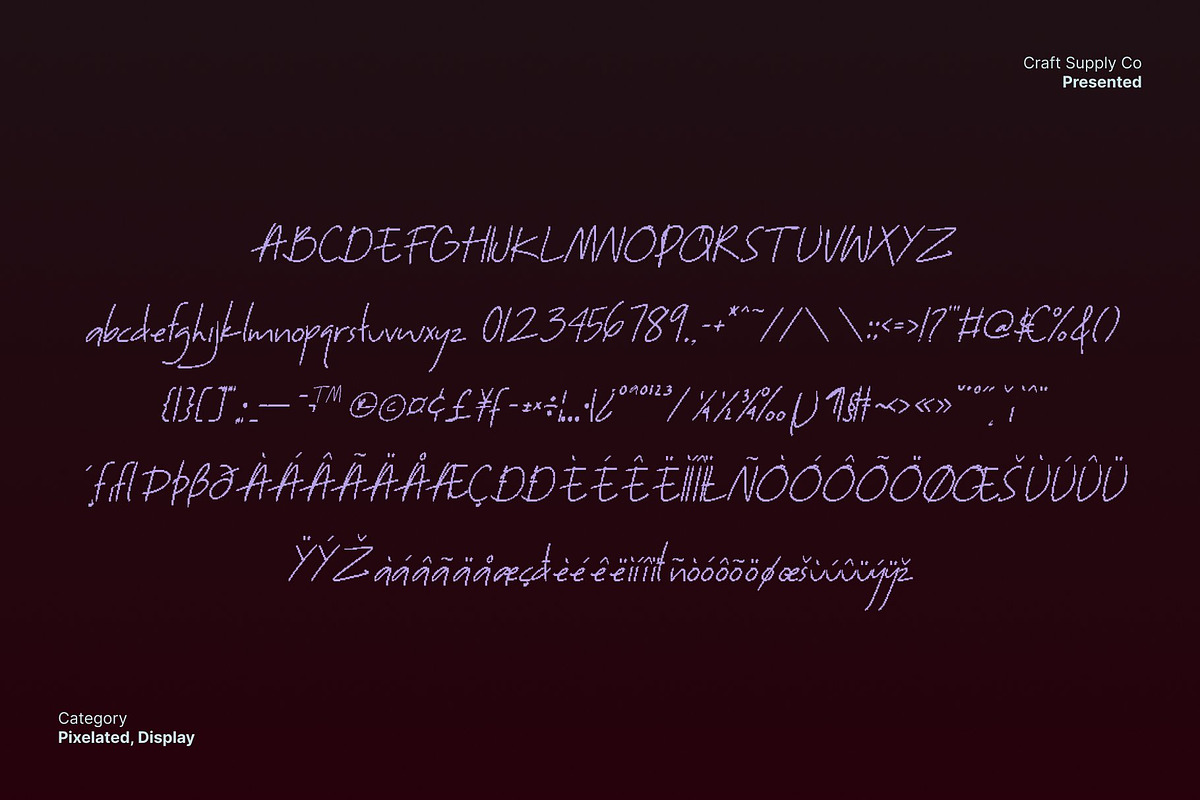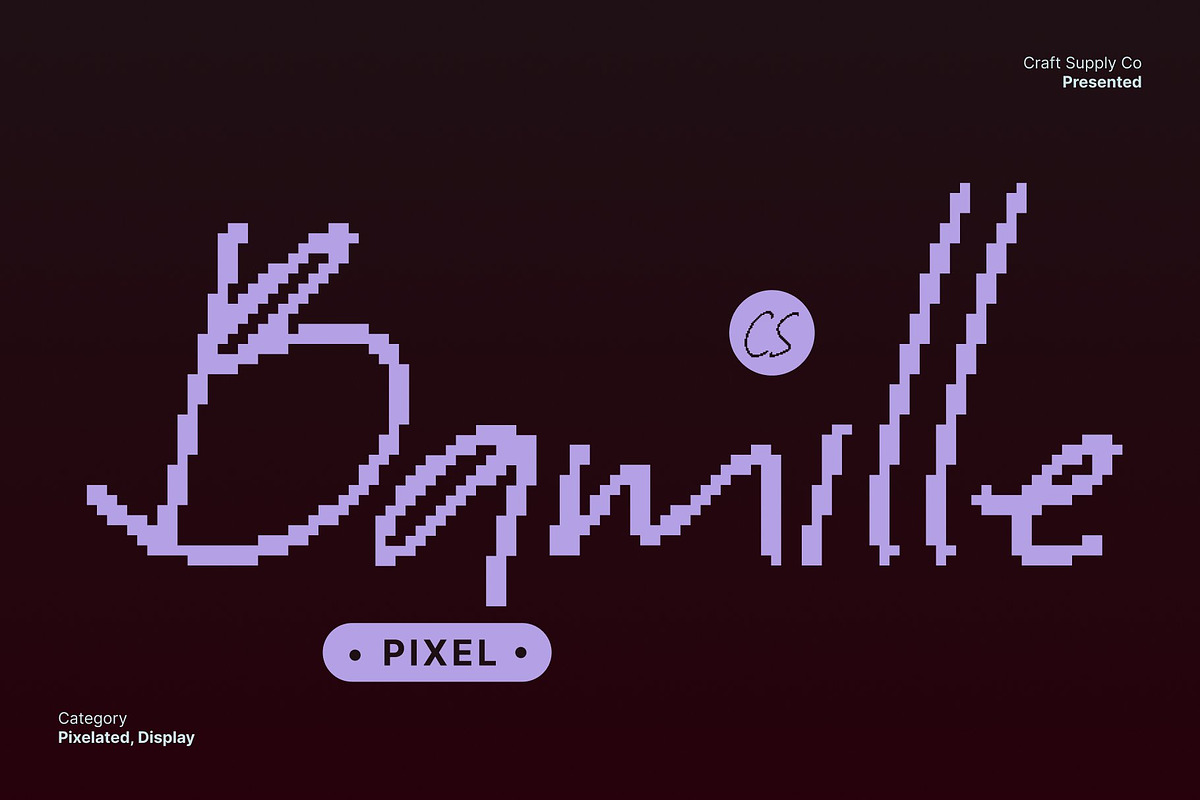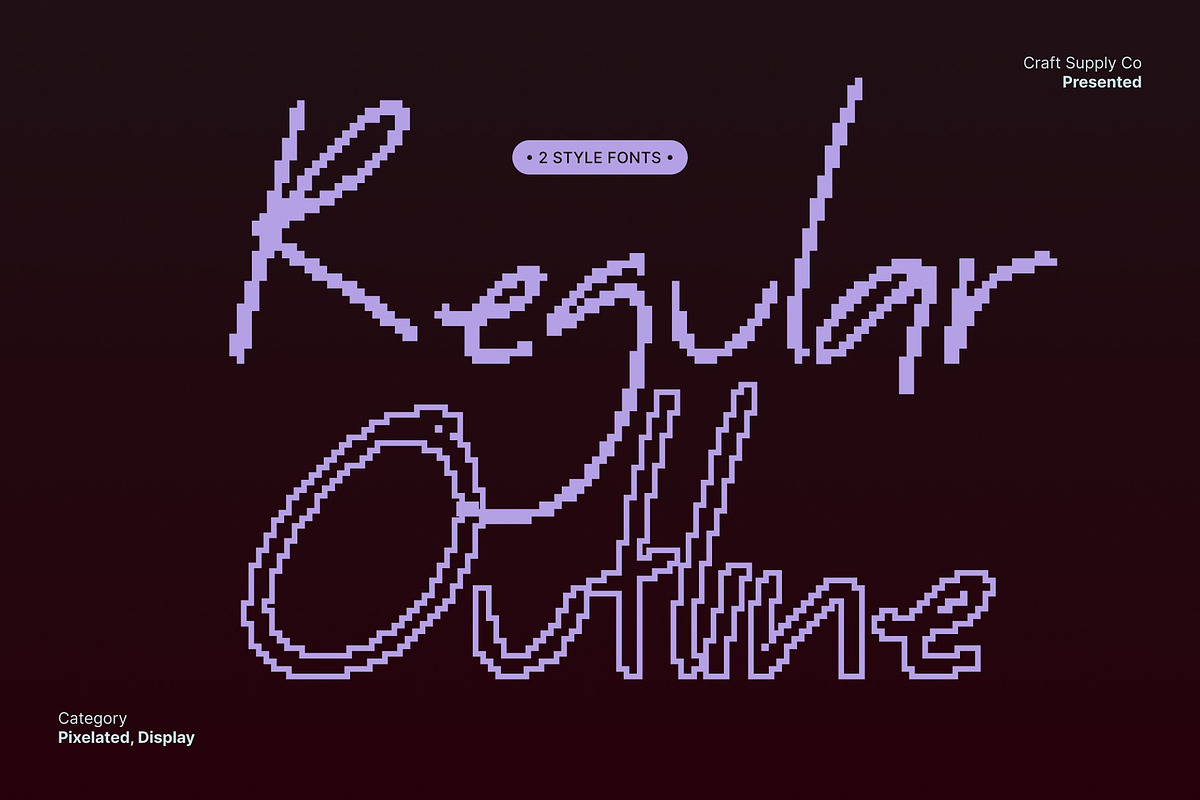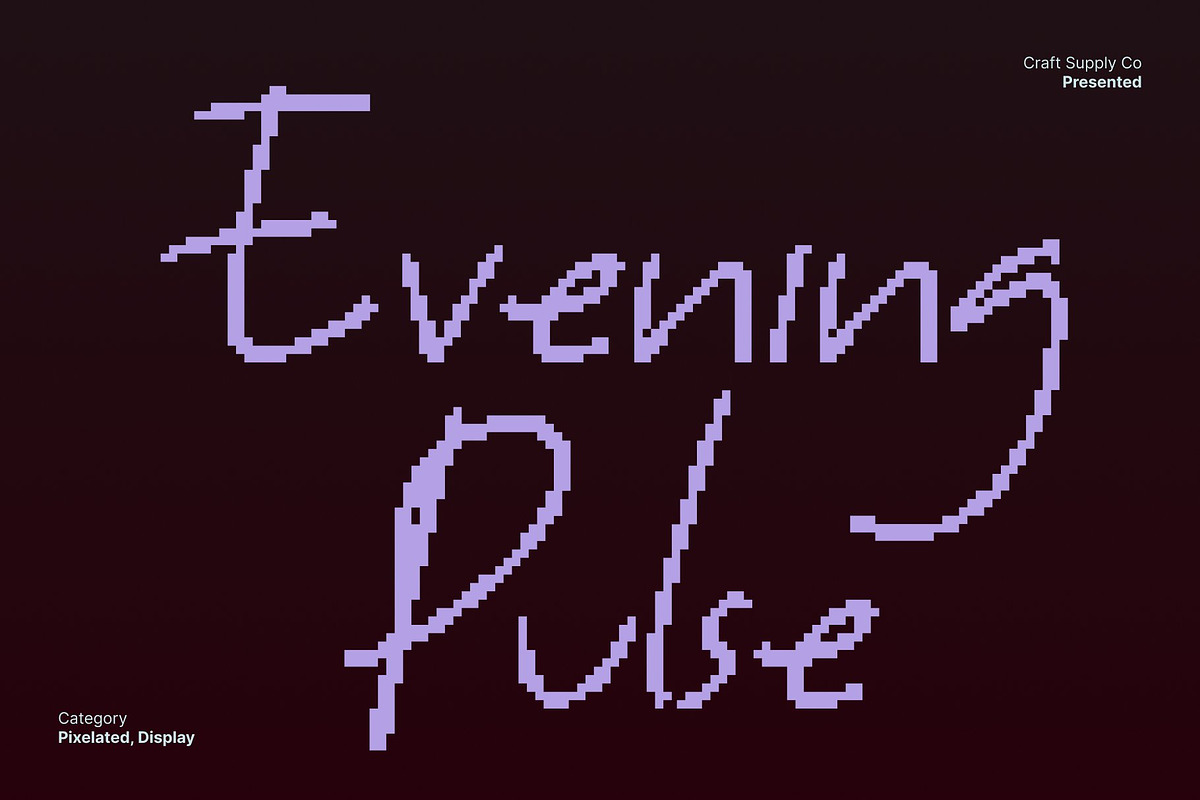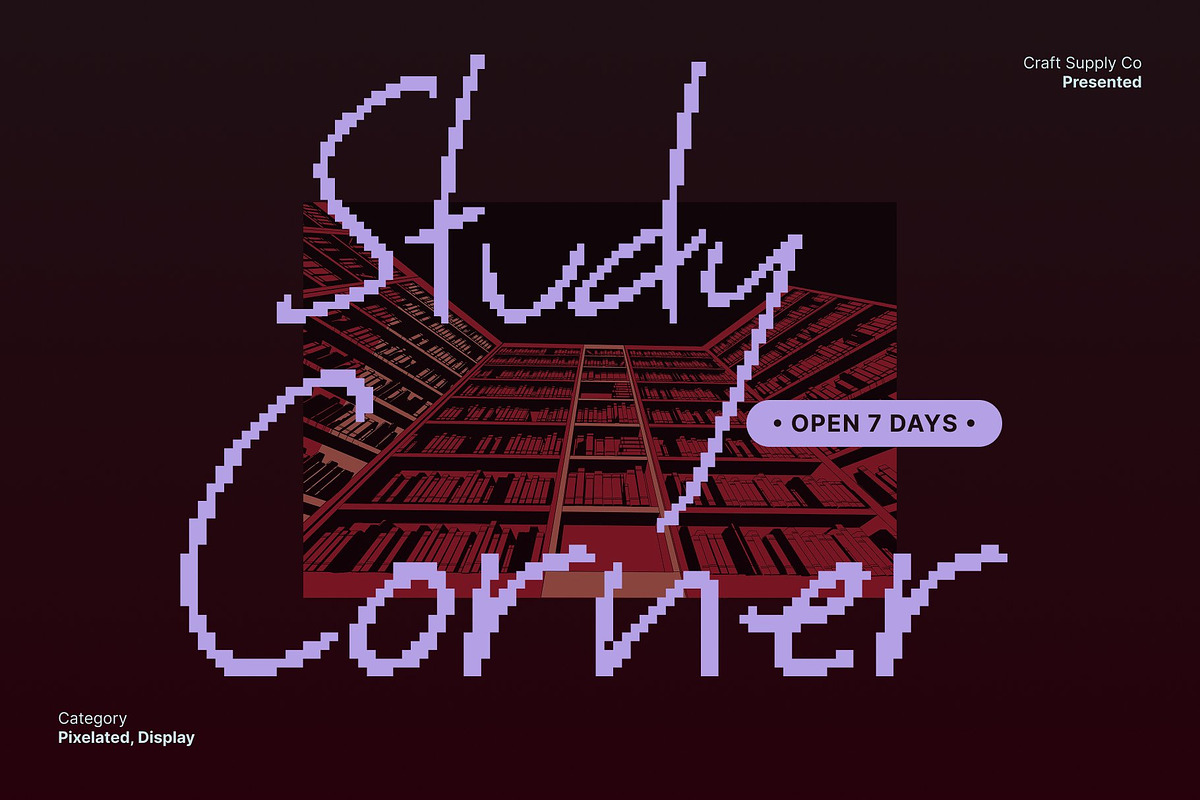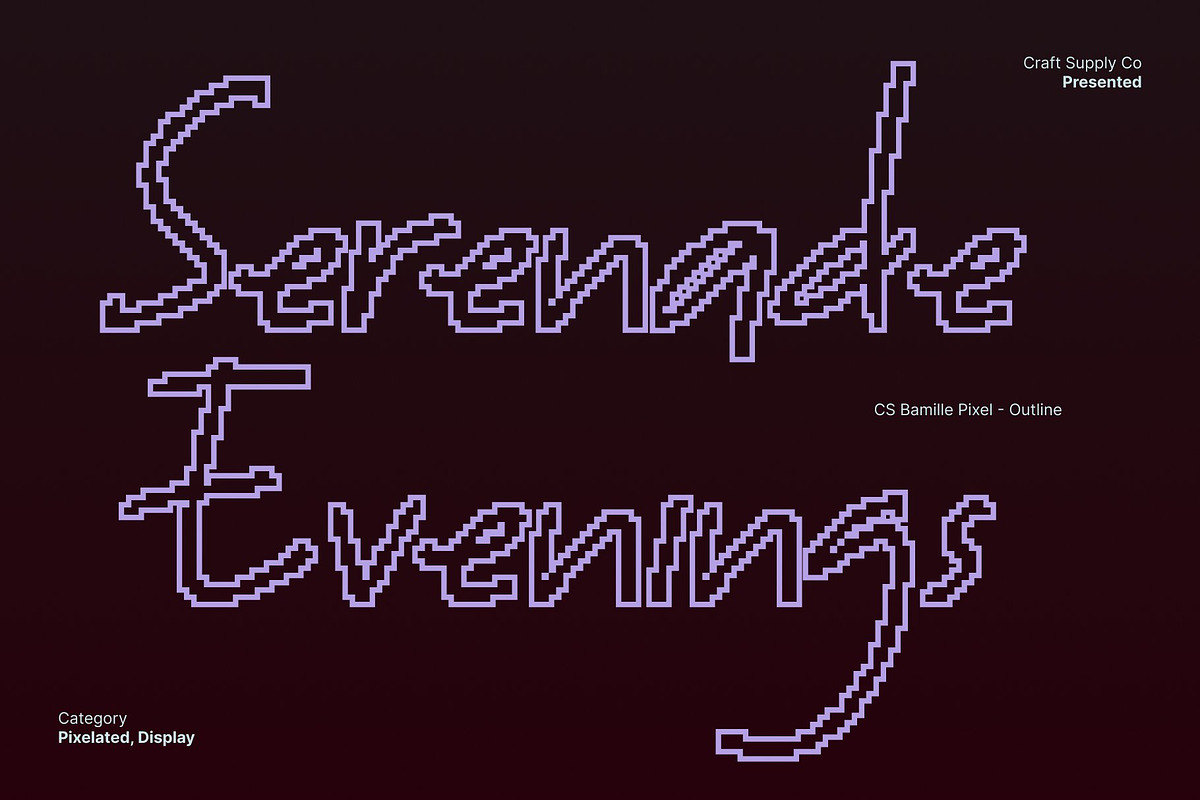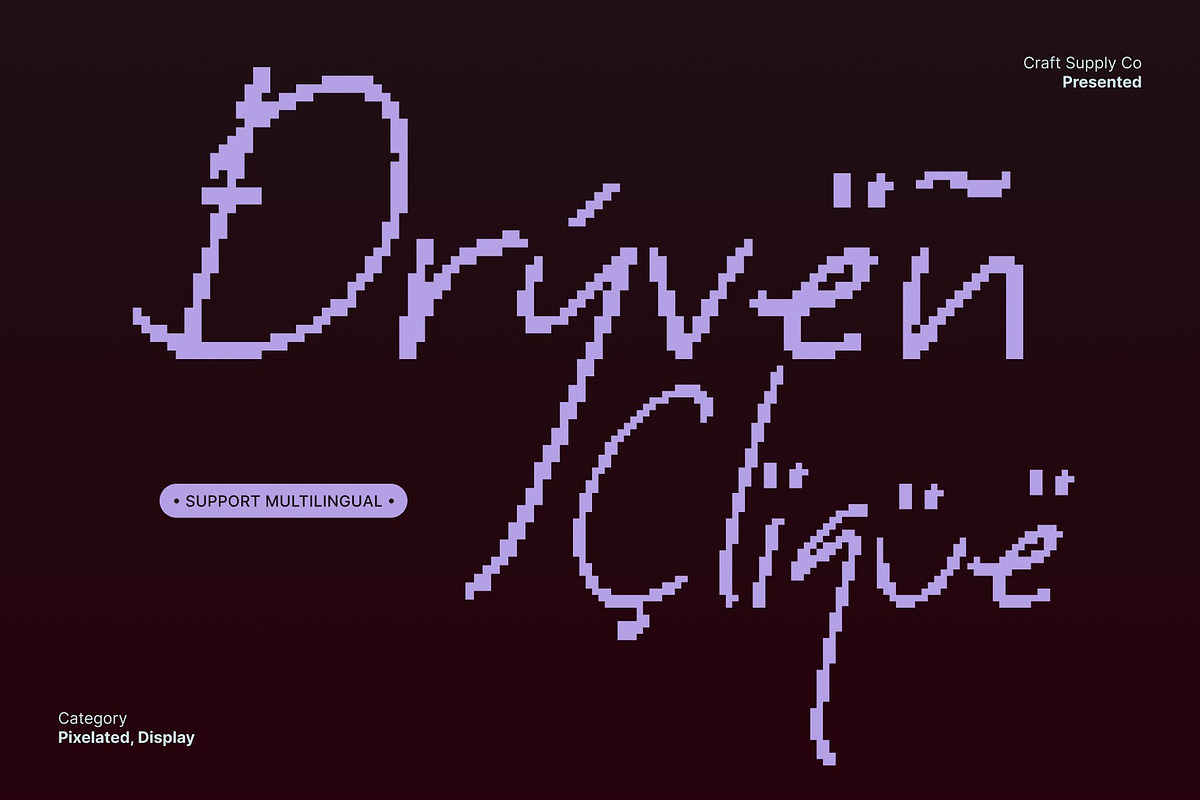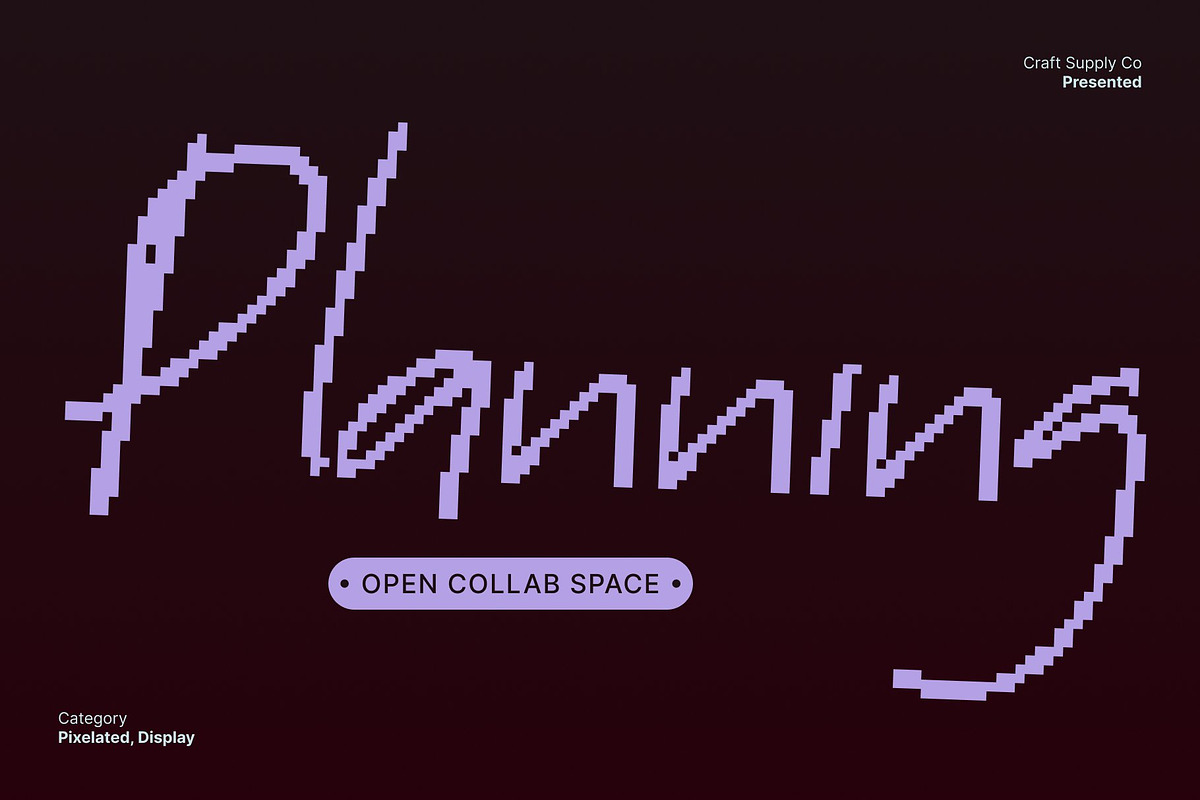
CS Bamille Pixel
CS Bamille Pixel – Retro Pixel Handwritten Font with Nostalgic Charm
Pixelated Style Inspired by 90s Digital Culture This brings the spirit of early digital graphics to life with its charming pixelated style. Each character is shaped with crisp, blocky forms reminiscent of retro video games, old computer screens, and nostalgic digital interfaces. This distinctive pixel aesthetic gives your designs an instant throwback feel, perfect for capturing the energy of the 90s digital era.
Handwritten Touches for a Playful Human Feel What makes this font stand out is its handwritten influence. Despite its pixel structure, every letter carries the warmth and spontaneity of natural handwriting. These manual touches soften the rigid grid-like form, creating a captivating blend of digital nostalgia and expressive personality.
Ideal for Retro, Playful, and Digital-Themed Designs Whether you’re designing posters, social media graphics, event promotions, or digital artworks, this font delivers a fun and nostalgic vibe. Its pixelated style instantly transports viewers to classic gaming culture, while the handwritten elements add a modern, approachable twist. It’s a powerful choice for projects that want to highlight creativity, nostalgia, or youthful energy.
Perfect for Branding and Creative Visual Identity This font is also a standout option for branding that aims to be memorable and unconventional. Its retro-digital aesthetic pairs beautifully with modern layouts, making your identity look bold, recognizable, and full of character.